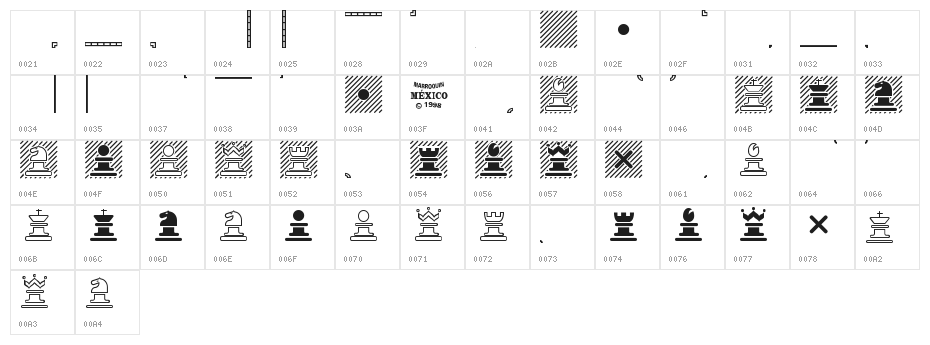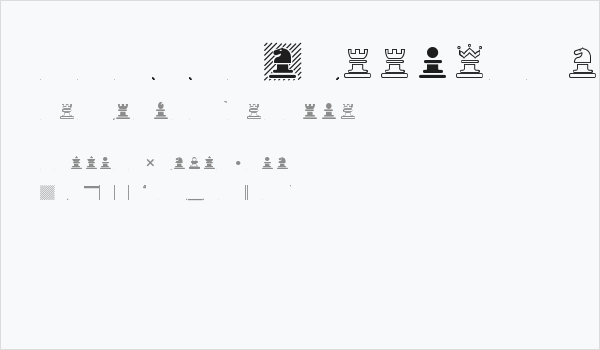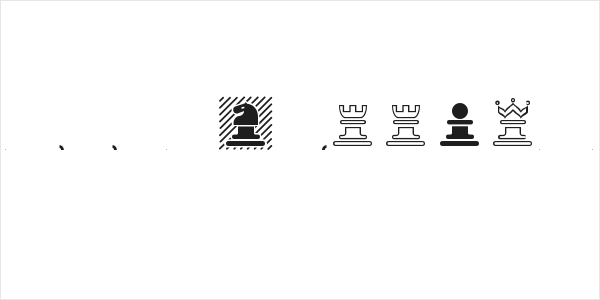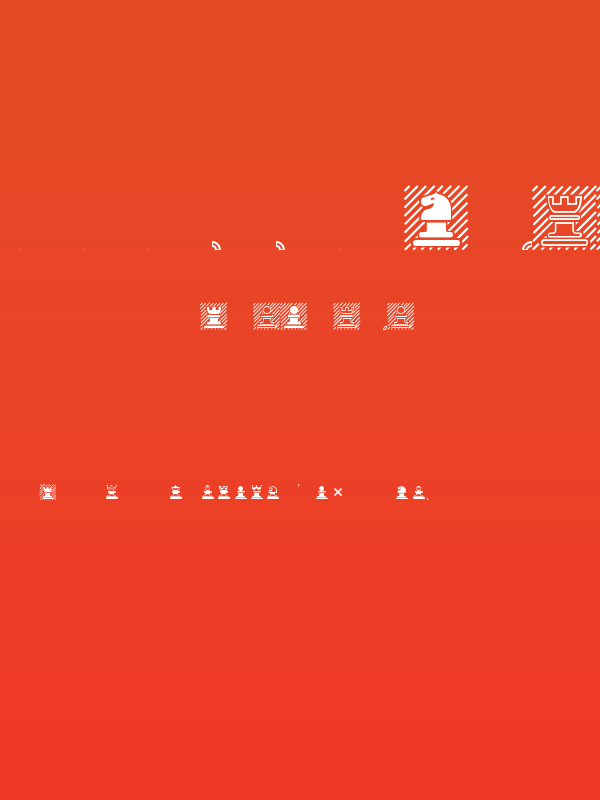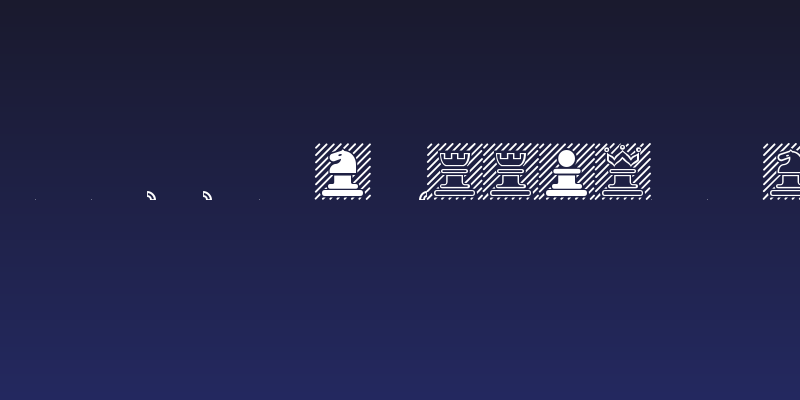
Chess-Marroquin Font
A decorative chess-themed symbol font featuring stylized representations of chess pieces, board elements, and game symbols in both outlined and filled styles. The glyphs are bold, geometric, and highly graphic, with some use of hatching and linework for emphasis.
Overall StyleDecorative, Thematic, Modern
Use CaseIcons, Diagrams, Themed graphics
Proposed ProjectsChess diagrams, educational materials, board game packaging, themed posters, infographics.